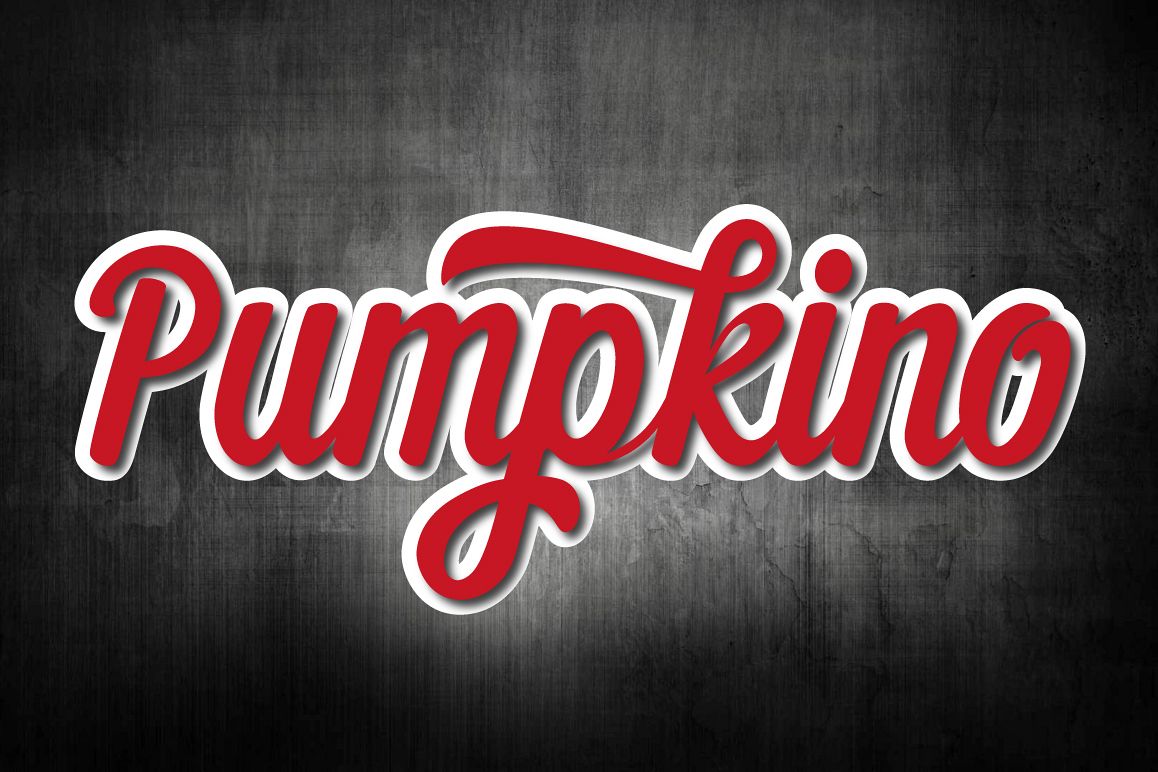
Pumpkino Font
Pumpkino is a script typeface with personality. It was designed as a display typeface. You can use it as a logo, badge, insignia, packaging, headline, poster, t-shirt/apparel, greeting card, and wedding invitation. The flowing characters are ideal to make an attractive messages, mix and match Pumpkino with a bunch of alternative characters to fit your project.
The alternative characters in this font were divided into several OpenType features such as, Stylistic Alternates, Stylistic Sets, and Ligature. The OpenType features can be accessed by using OpenType savvy program such as Adobe Illustrator and Adobe InDesign. This font is multiple language support.